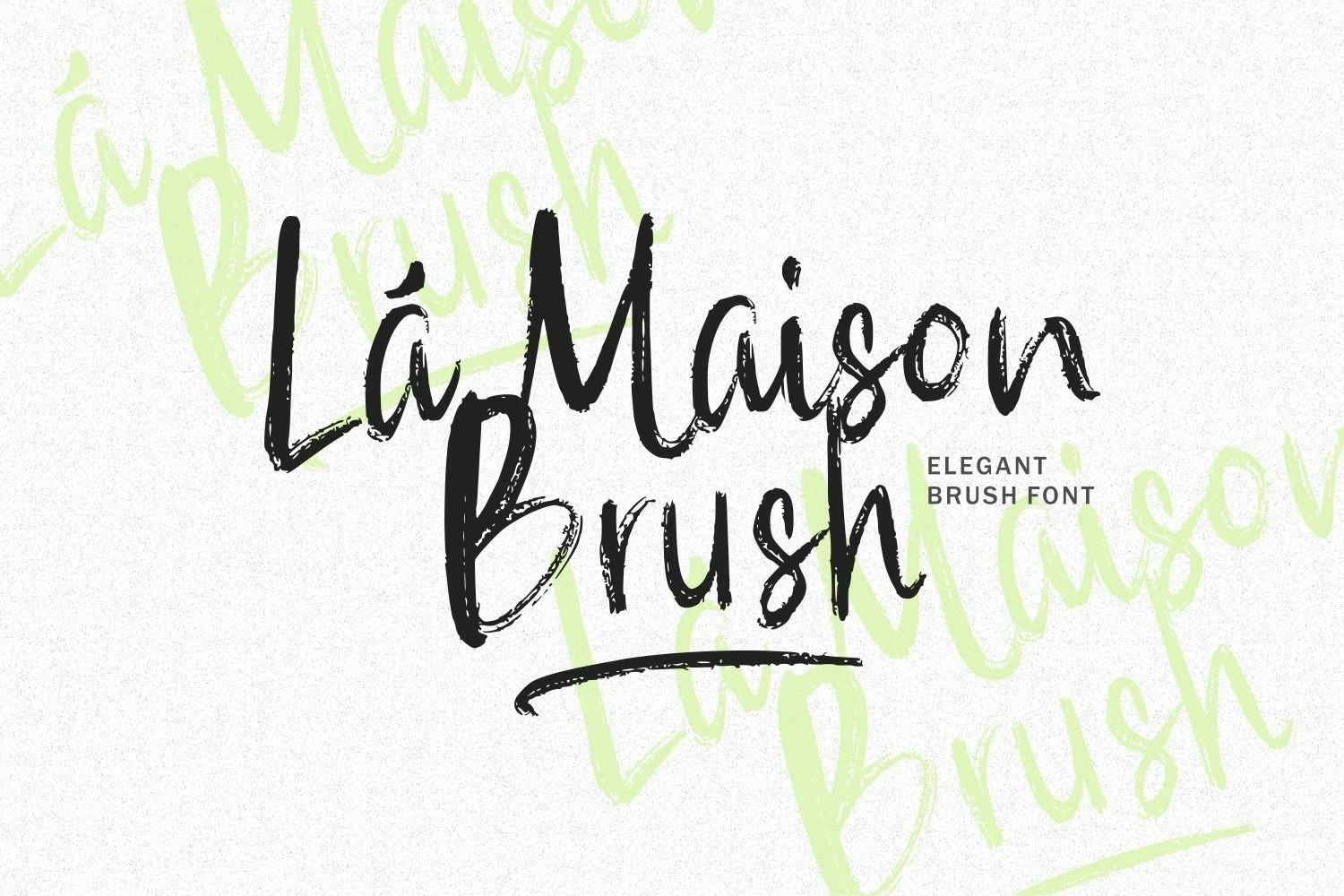
AL - La Maison Brush Font
AL - La Maison Brush Font Free Download is an elegant and artistic typeface that captures the raw power of a hand-painted brush with a touch of French sophistication. For commercial use, you must purchase this font, but you can download it for free for testing purposes. This versatile font is perfect for a wide range of creative projects, including luxury branding, wedding invitations, fashion magazines, upscale product packaging, and sophisticated social media graphics. What makes this font so exciting is its authentic, hand-painted texture and confident, dynamic strokes, which instantly gives your designs an elegant, bold, and unforgettable character. The AL - La Maison Brush font family includes a range of styles and features, such as a Regular version, a more stylized Bold version, and a collection of dynamic swashes and alternates, providing a complete and flexible design solution.
This isn’t just a font; it’s a statement of style and grace. The design of AL - La Maison Brush is inspired by a blend of authentic brush lettering and a chic, elegant aesthetic. Its distinctive, free-flowing letterforms and bold presence ensure that your headlines and titles will be both memorable and highly impactful. Whether you’re a designer crafting a brand identity for a luxury product, a creative working on a poster for an upscale event, or a business looking for a font that conveys a sense of class and artistry, this typeface provides the perfect foundation. The hand-painted aesthetic adds a layer of authentic grit that makes your work feel bespoke, real, and full of character.
The versatility of the AL - La Maison Brush family is one of its greatest strengths. You can use the regular weight for a clean, artistic feel, or the bold version for a more intense, expressive look. The included swashes and alternates allow you to customize your text and create unique typographic compositions that feel bespoke and original. This flexibility makes it an invaluable asset for designers who need to create custom content that feels both contemporary and personal. It's a font that works hard, delivering a look that is both stylish and full of character, ensuring your designs always make a memorable impression.